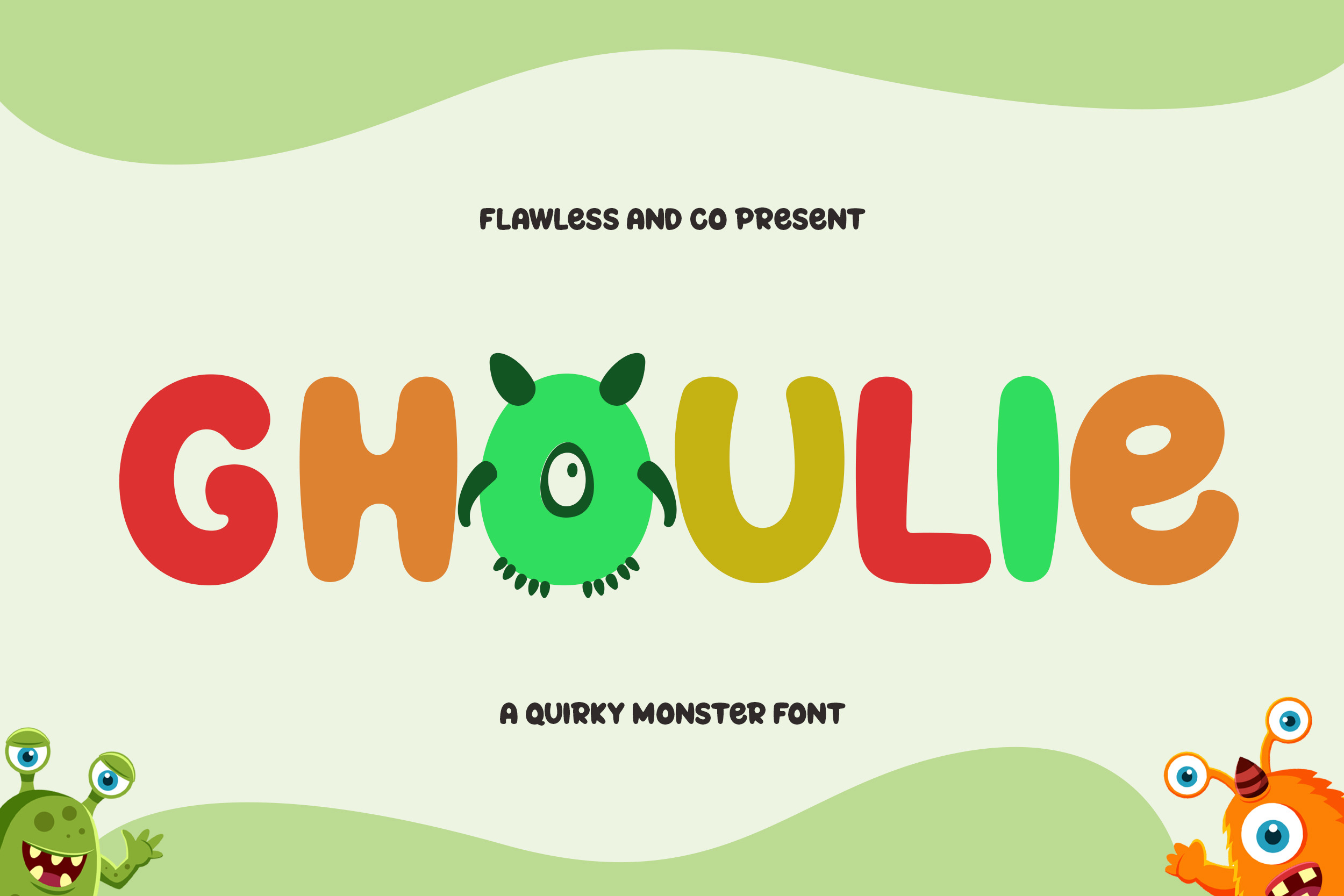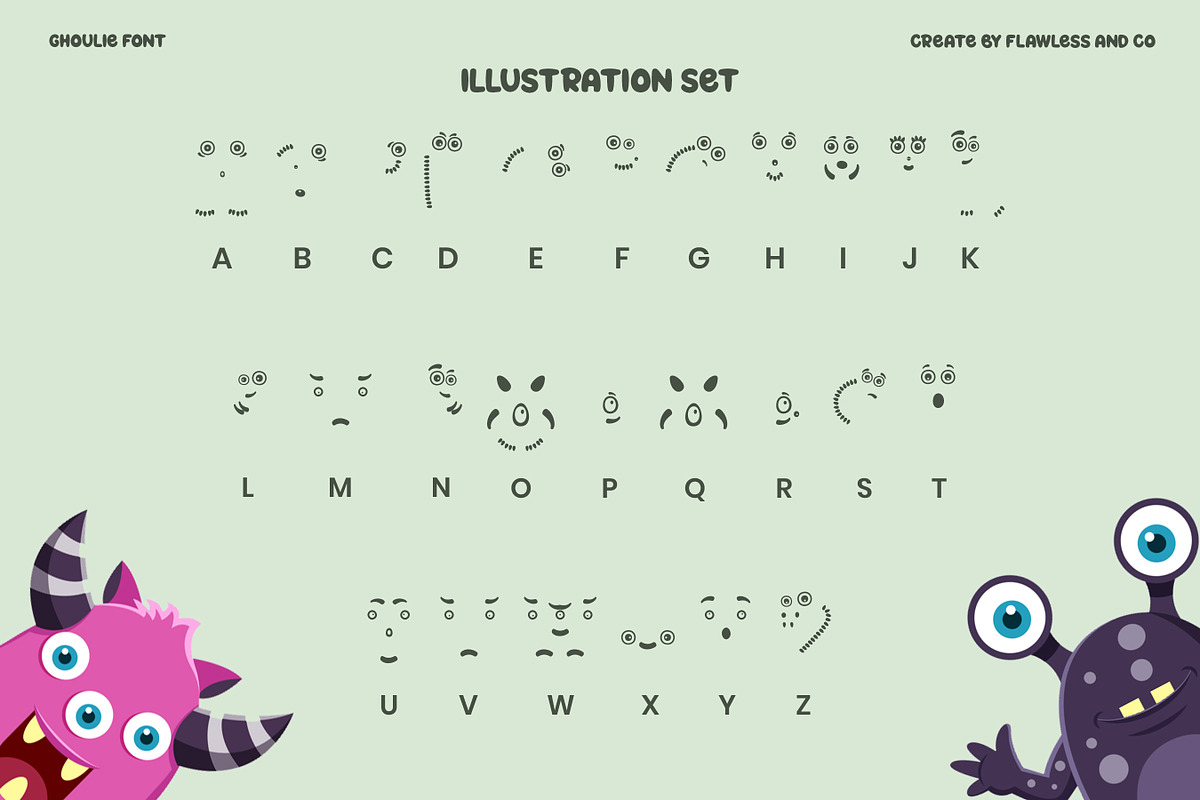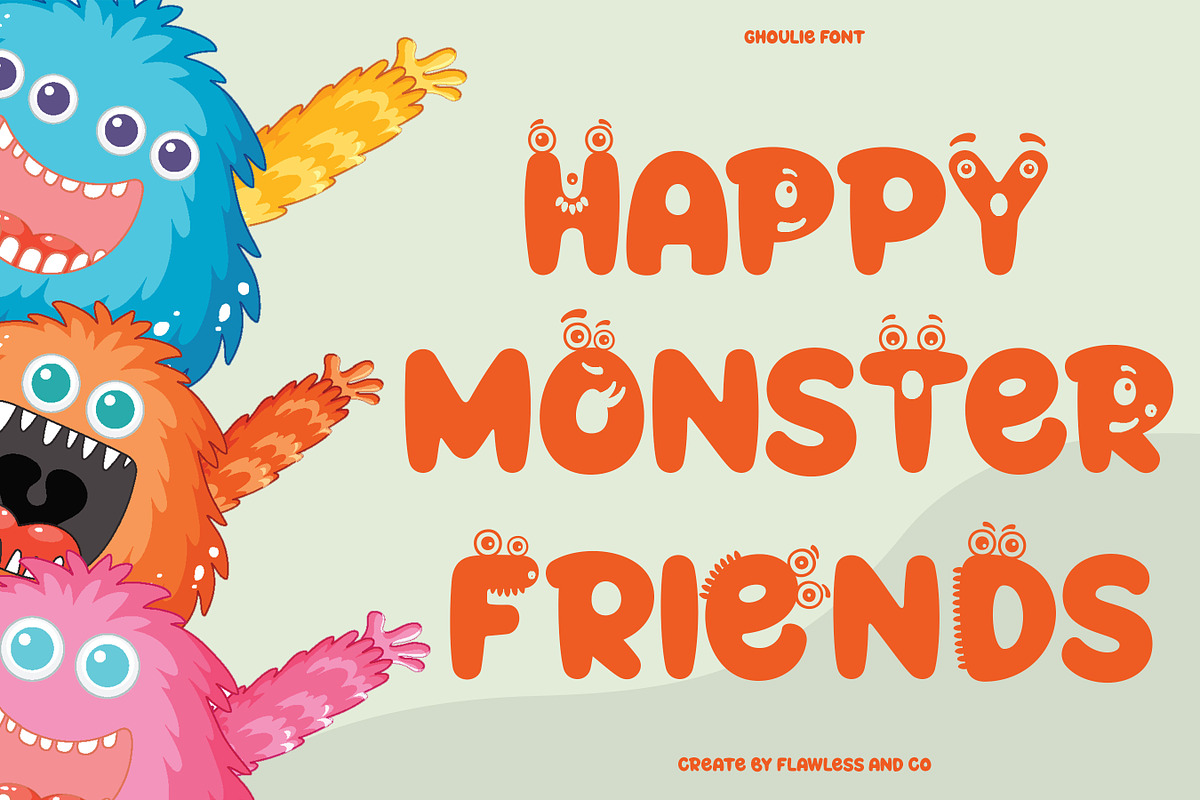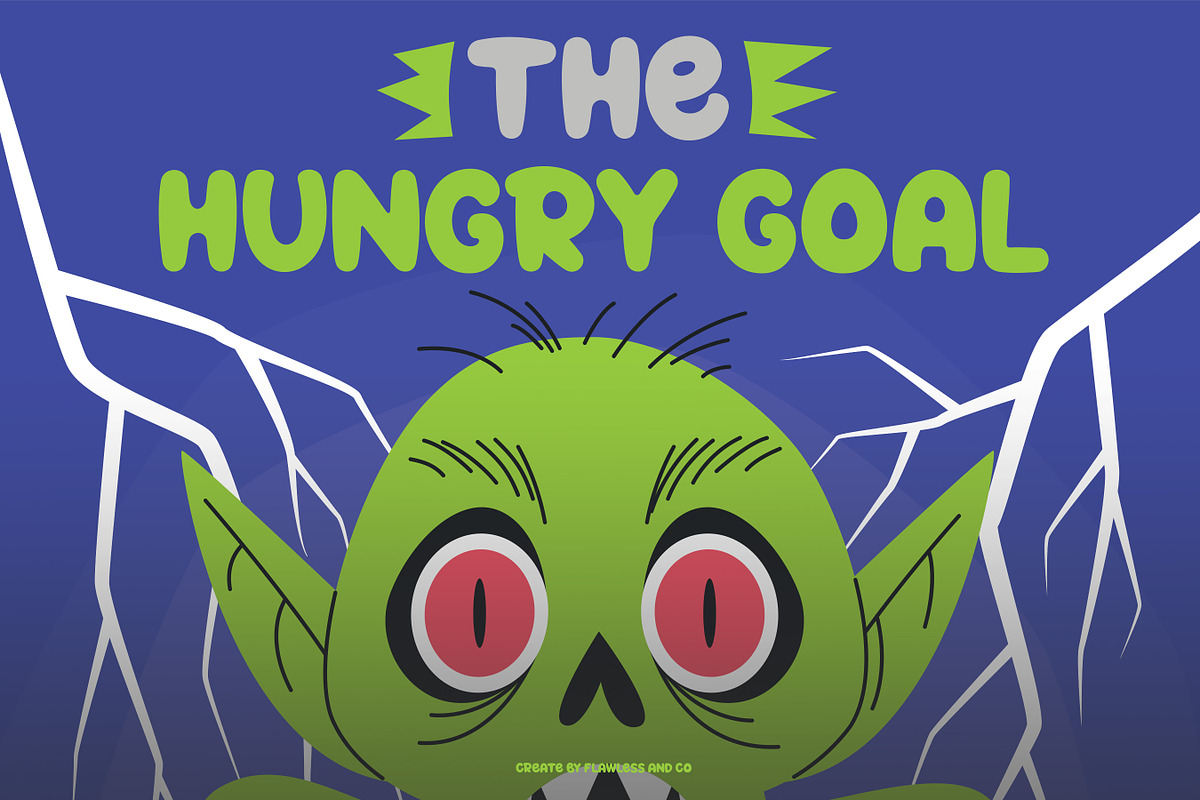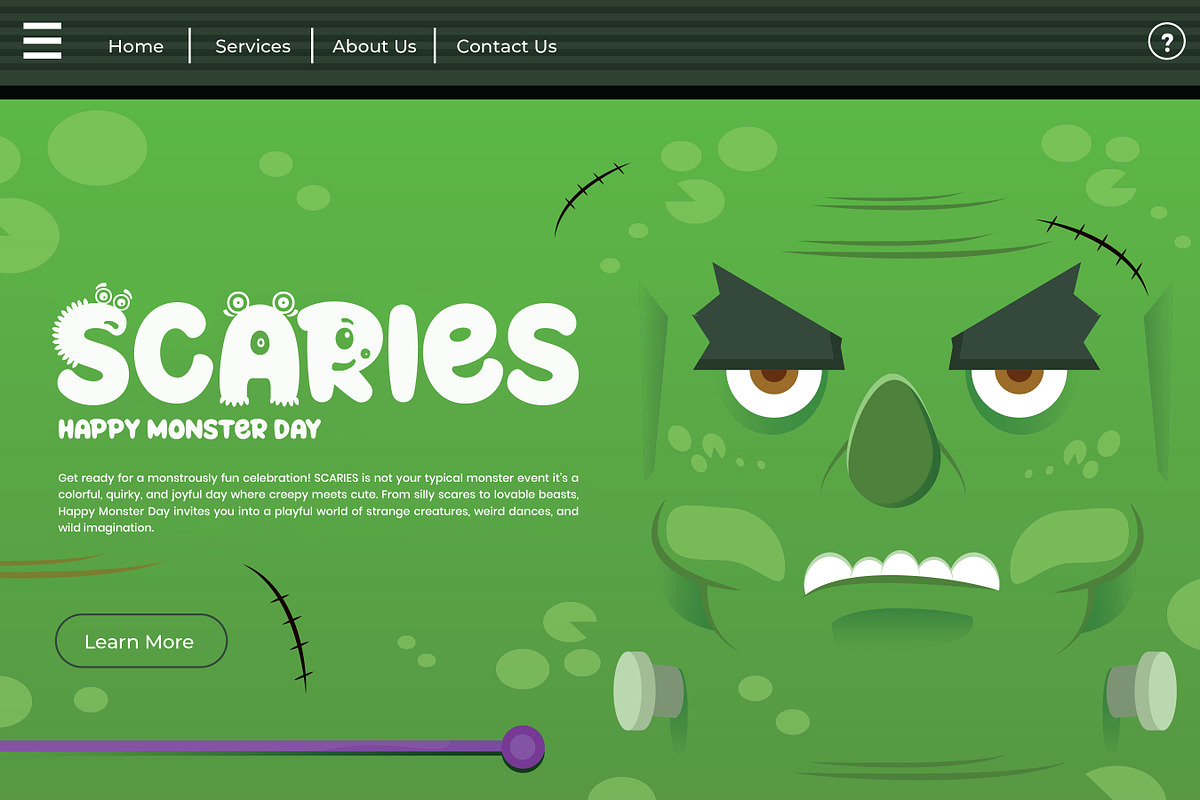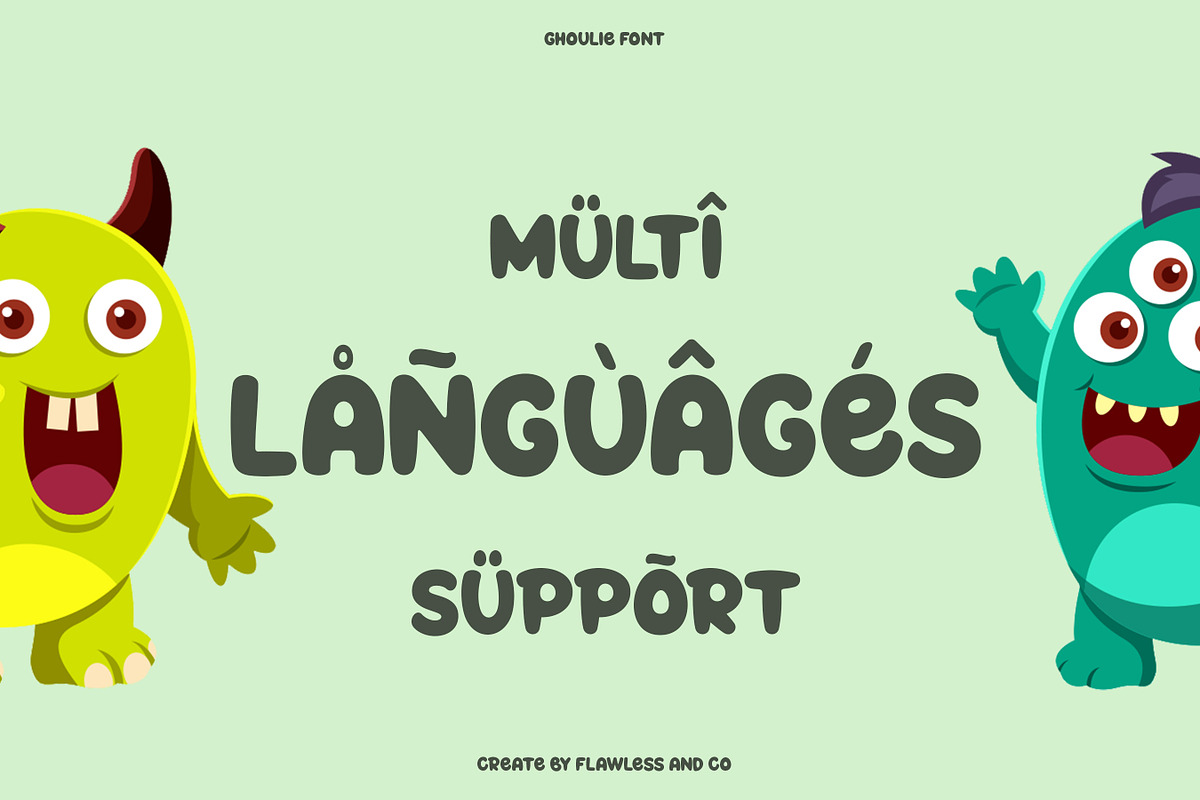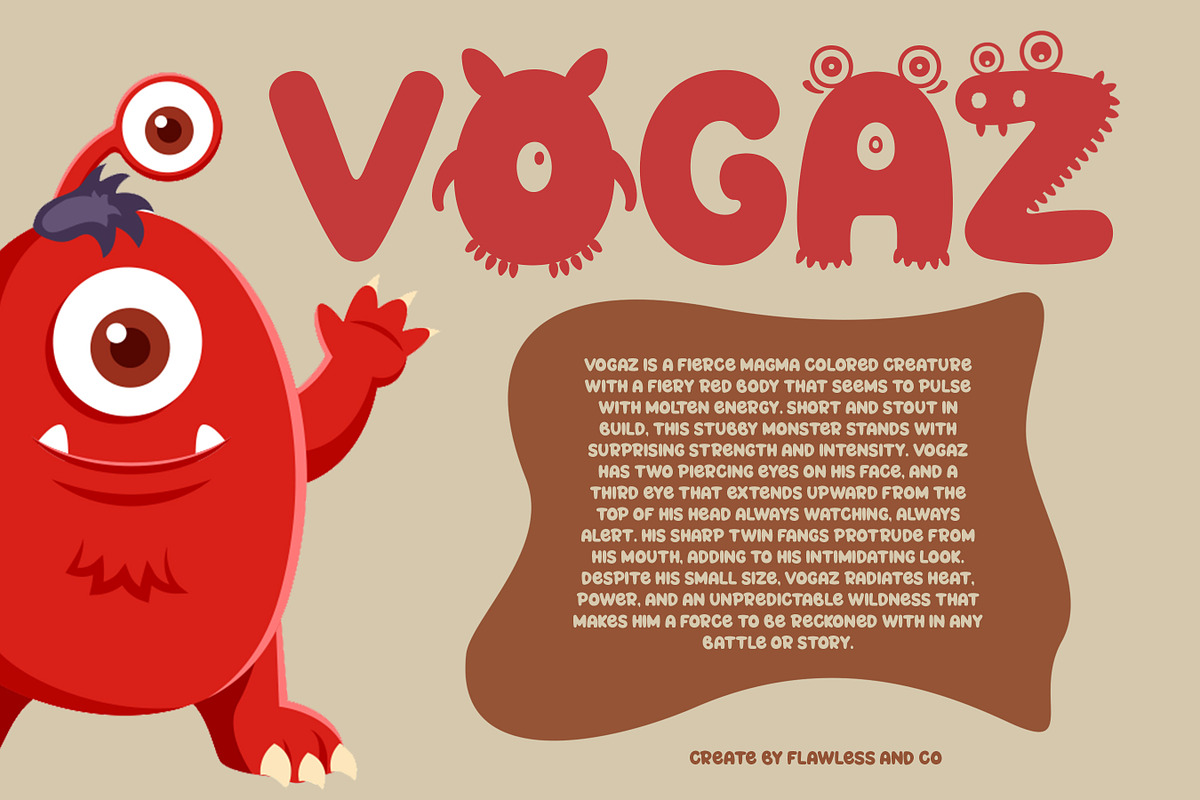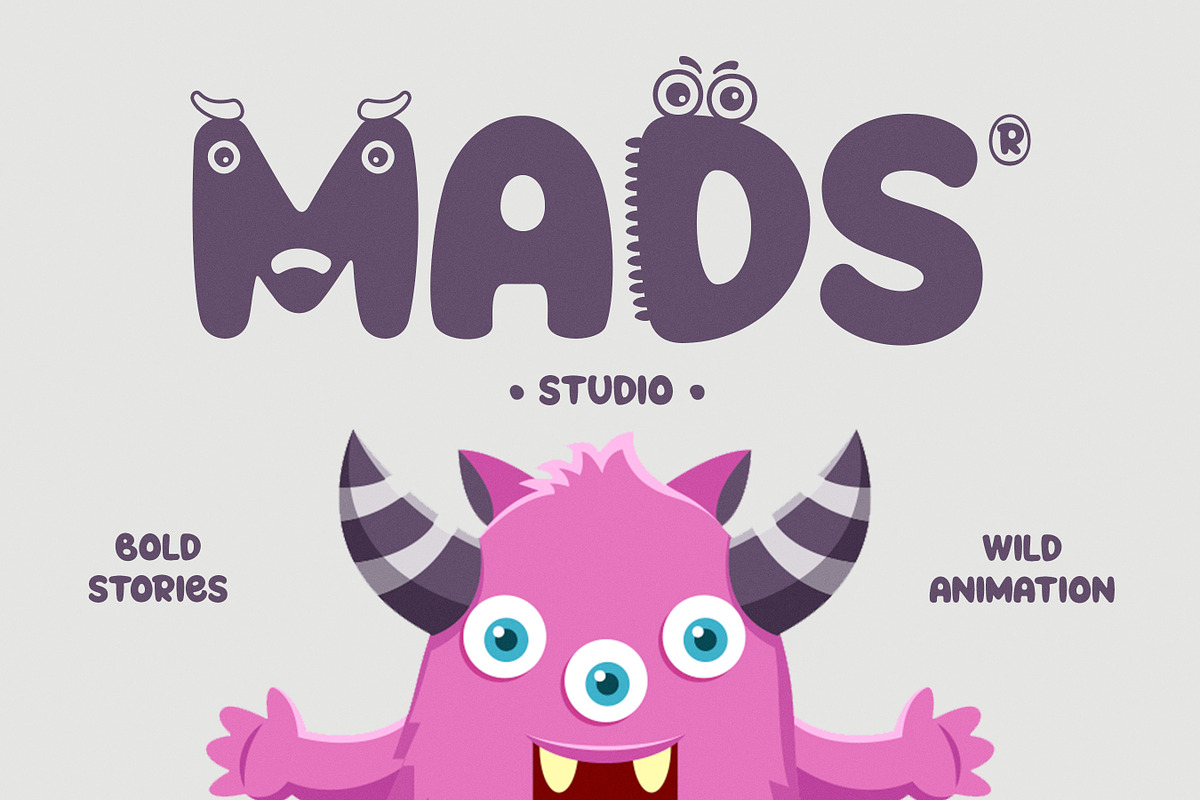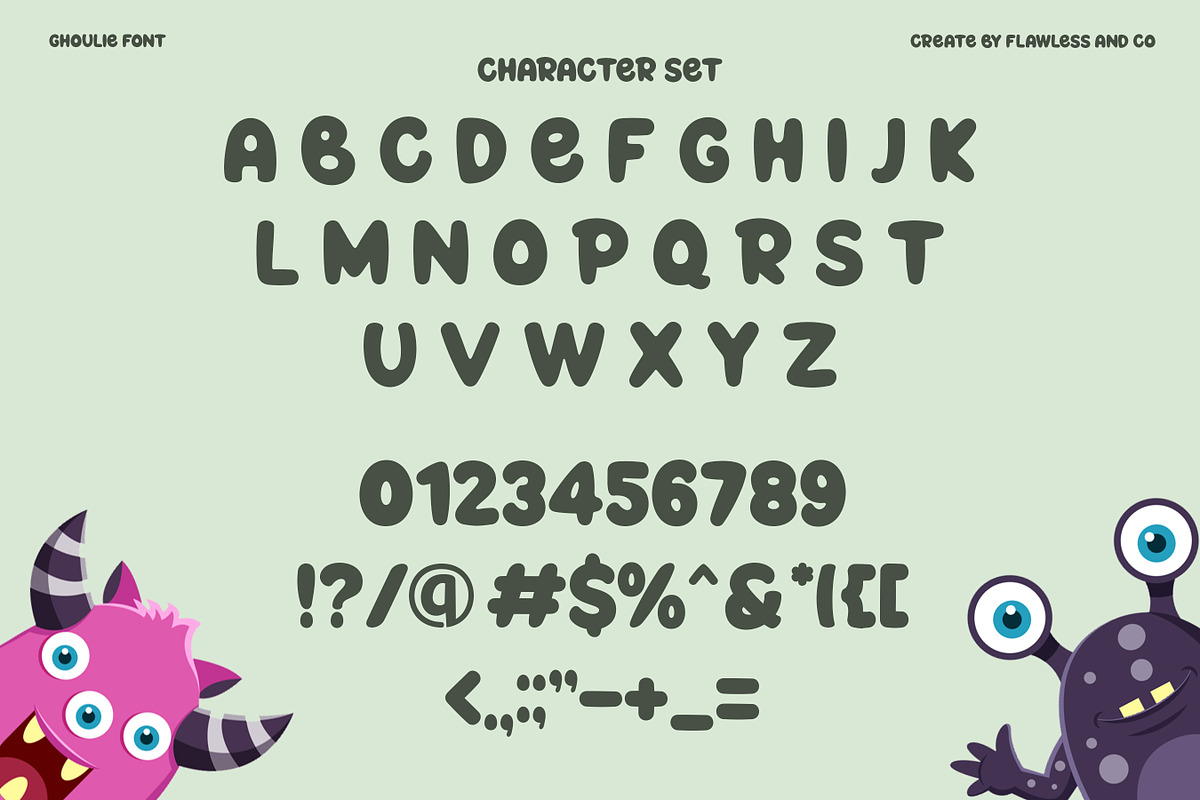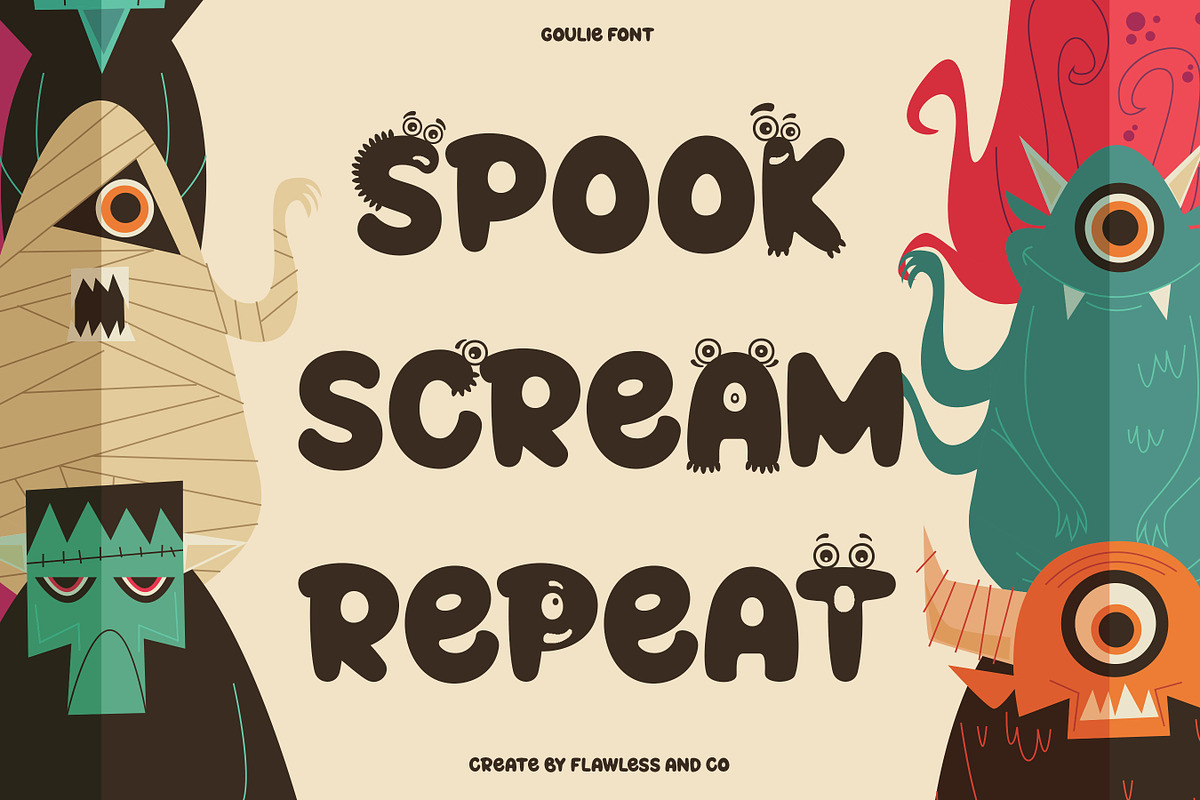
Ghoulie - Display Monster Font
Ghoulie - Monster Font
Ghoulie is a playful and quirky monster font, full of charm and cheeky personality. Each letter feels alive, bouncing with color and mischievous energy, as if little monsters are peeking out from the alphabet. With its rounded, friendly shapes and monster-inspired details, Ghoulie brings fun to every project—perfect for kids’ books, cartoons, games, party invitations, or anything that needs a touch of silly spookiness. Despite its spooky name, Ghoulie radiates joy, laughter, and creativity, making it the perfect monster buddy for designers who want to bring characters to life through typography.
Who Should Use Ghoulie?
Ghoulie is perfect for playful creators, fun-loving designers, and brands that want to add a quirky monster vibe to their projects. It’s especially great for children’s book illustrators, game developers, party planners, and anyone who needs cheerful, spooky, and imaginative typography.
A Must-Have Font for Brand, Logo, and Kids’ Book Projects — Creators and Designers
Ghoulie is a must-have for creatives who want to design with imagination, fun, and a hint of quirky charm. Whether you’re building a kid-friendly brand, designing eye-catching logos, creating interactive book covers, or preparing themed party materials, Ghoulie gives your work a distinctive personality. Its unique style makes every project stand out, ensuring that your design is not only visually striking but also unforgettable to your audience.
Why Choose Ghoulie for Brand, Logo, and Kids’ Book Projects?
Ghoulie is the perfect choice when you want to bring fun, imagination, and a touch of spooky playfulness into your designs. Its unique monster-inspired style makes it ideal for children’s books, playful branding, gaming titles, party themes, and creative logos. With Ghoulie, every project gets a bold, eye-catching personality that sparks curiosity and joy. Designed to stand out, this font helps your work connect with audiences through its quirky yet friendly character.
Suitable For:
- Children’s book covers & illustrations
- Kids’ brand identities and playful logo design
- Gaming projects and fantasy-themed graphics
- Party invitations, posters, and decorations
- Social media content with fun and quirky vibes
- Merchandise, toys, and creative packaging
- Educational materials and kid-friendly campaigns